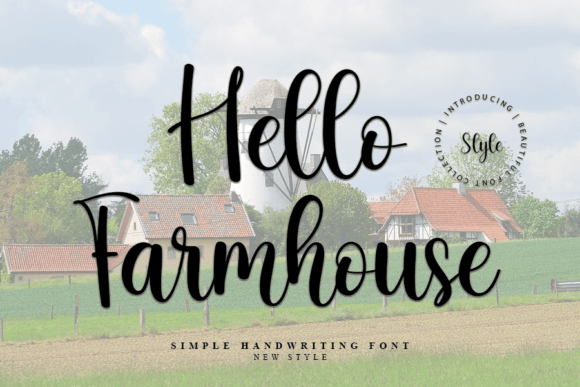
Embark on a calligraphy adventure with Hello Farmhouse Font, a script font that exudes charm and elegance. Ade Studio, the creative minds behind this masterpiece, have meticulously designed each character to capture the essence of handwritten beauty. As you explore the collection, you'll discover a treasure trove of possibilities that will elevate your designs to new heights.
Hello Farmhouse Font is more than just a collection of letters; it's an invitation to express your creativity and make a statement. Its delicate strokes and flowing curves lend a touch of sophistication to any project, whether it's a personal letter, an elegant invitation, or a captivating product label.
Imagine your words taking on a new life as they're adorned with the graceful lines of Hello Farmhouse Font. Its versatility knows no bounds, making it the perfect choice for a wide range of projects, from heartfelt messages to eye-catching logos. You'll find endless opportunities to unleash your imagination and leave a lasting impression.
Step into the world of Hello Farmhouse Font and discover a world of endless possibilities. Its timeless beauty will add a touch of magic to your designs and captivate your audience. Whether you're a seasoned designer or just starting out, this font will inspire you to create something truly extraordinary.
Make your mark with Hello Farmhouse Font, the ultimate choice for those seeking a touch of elegance and charm in their designs. Its delicate strokes and flowing curves will leave an unforgettable impression on anyone who encounters your creations. Experience the joy of writing with a font that feels as good as it looks.